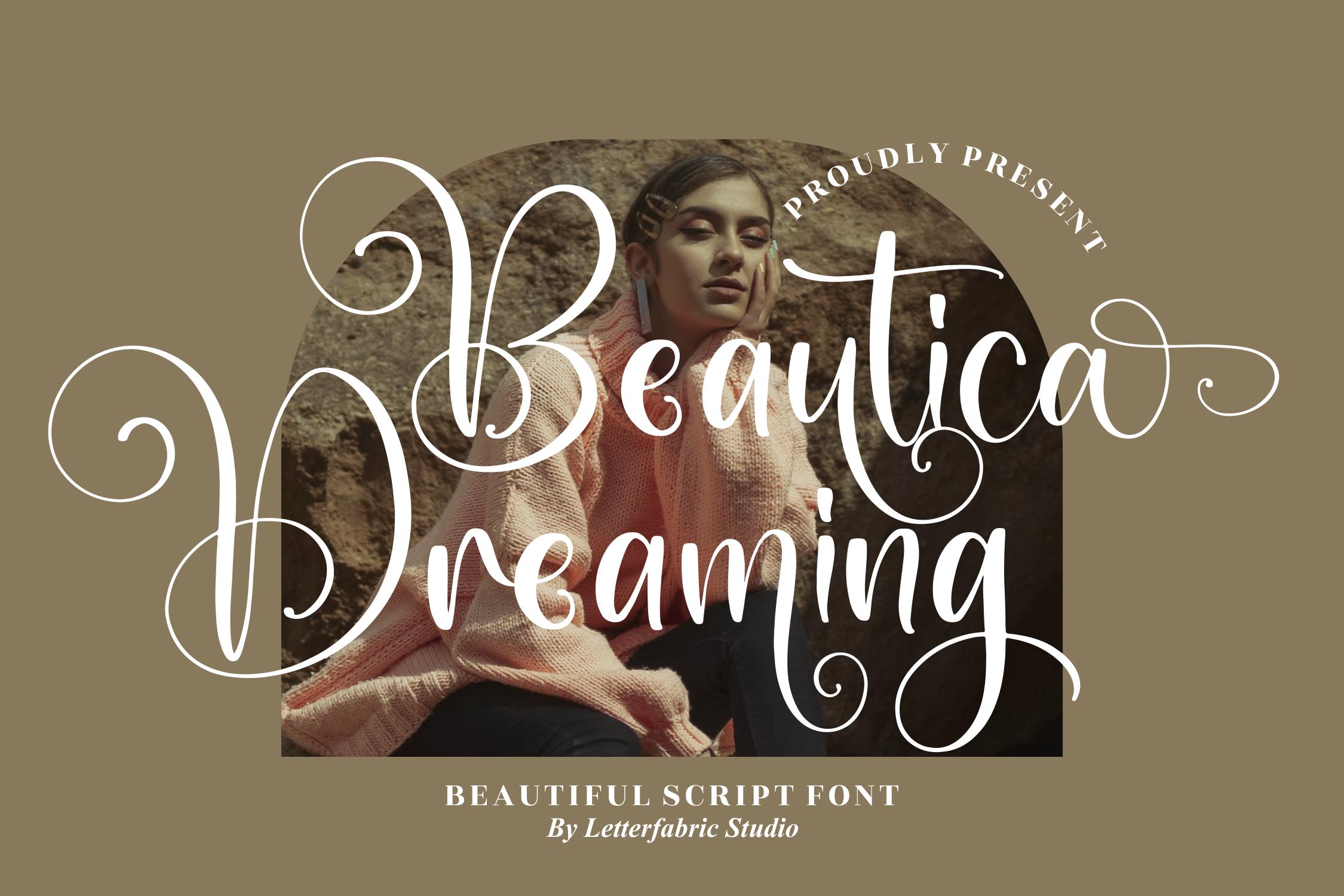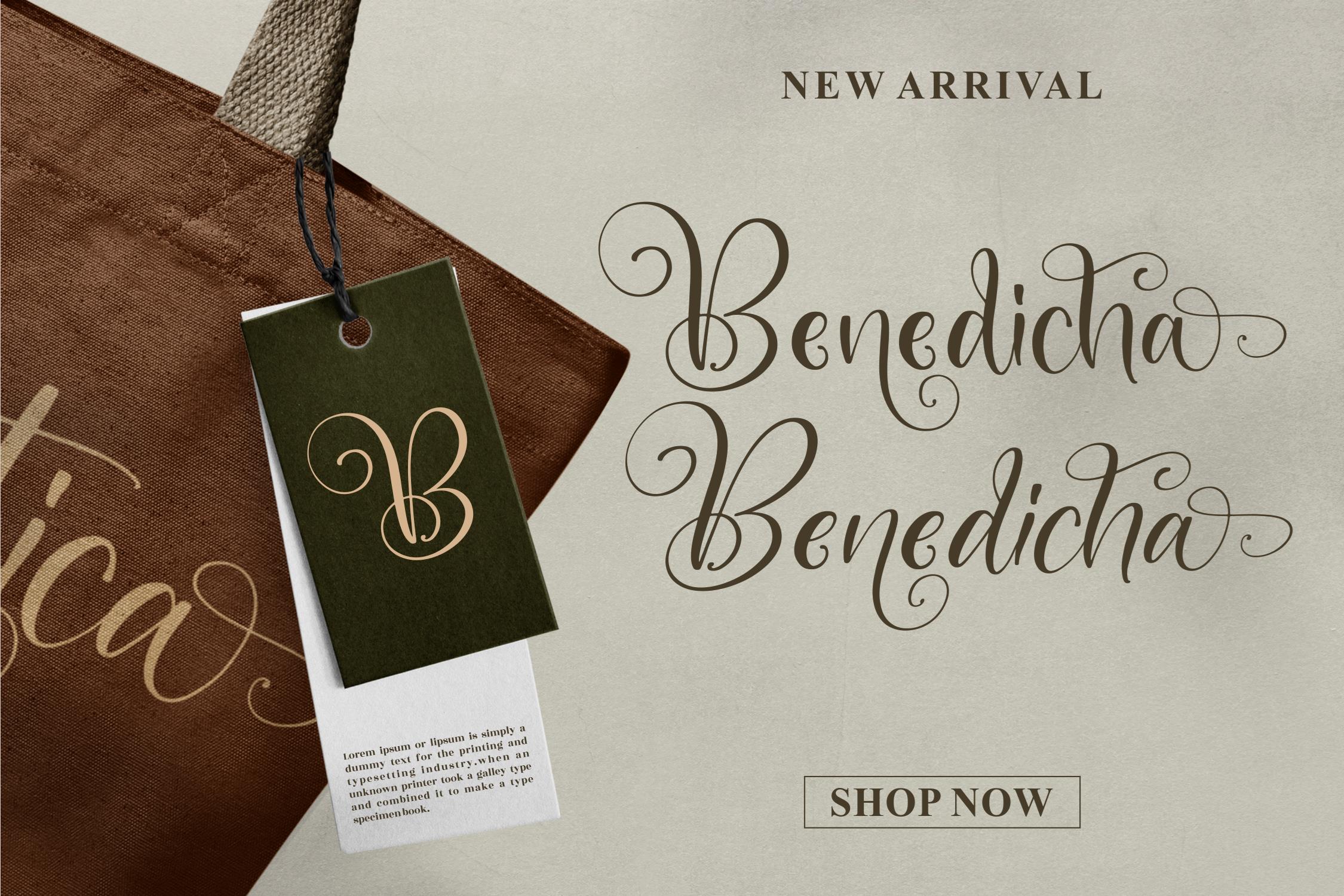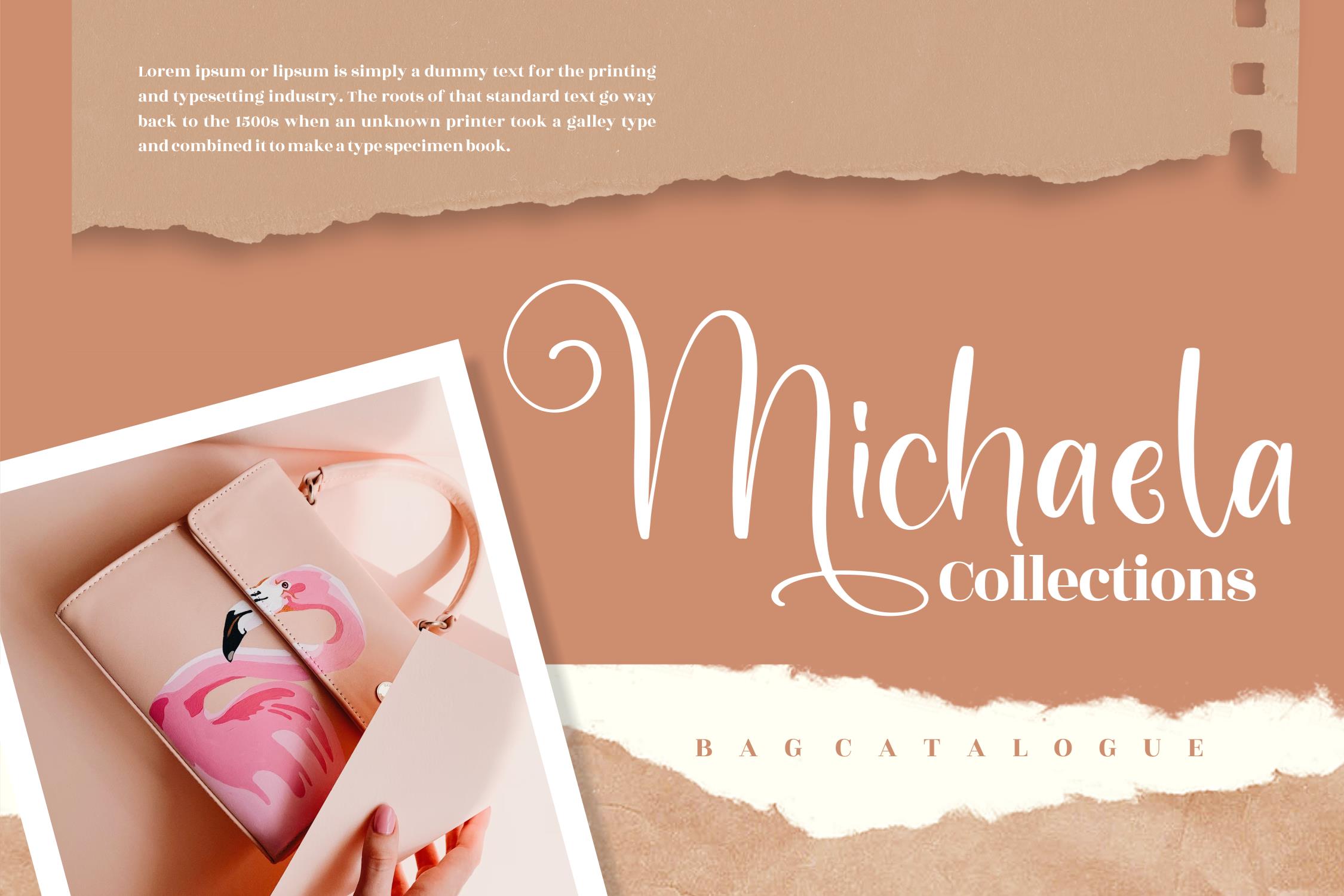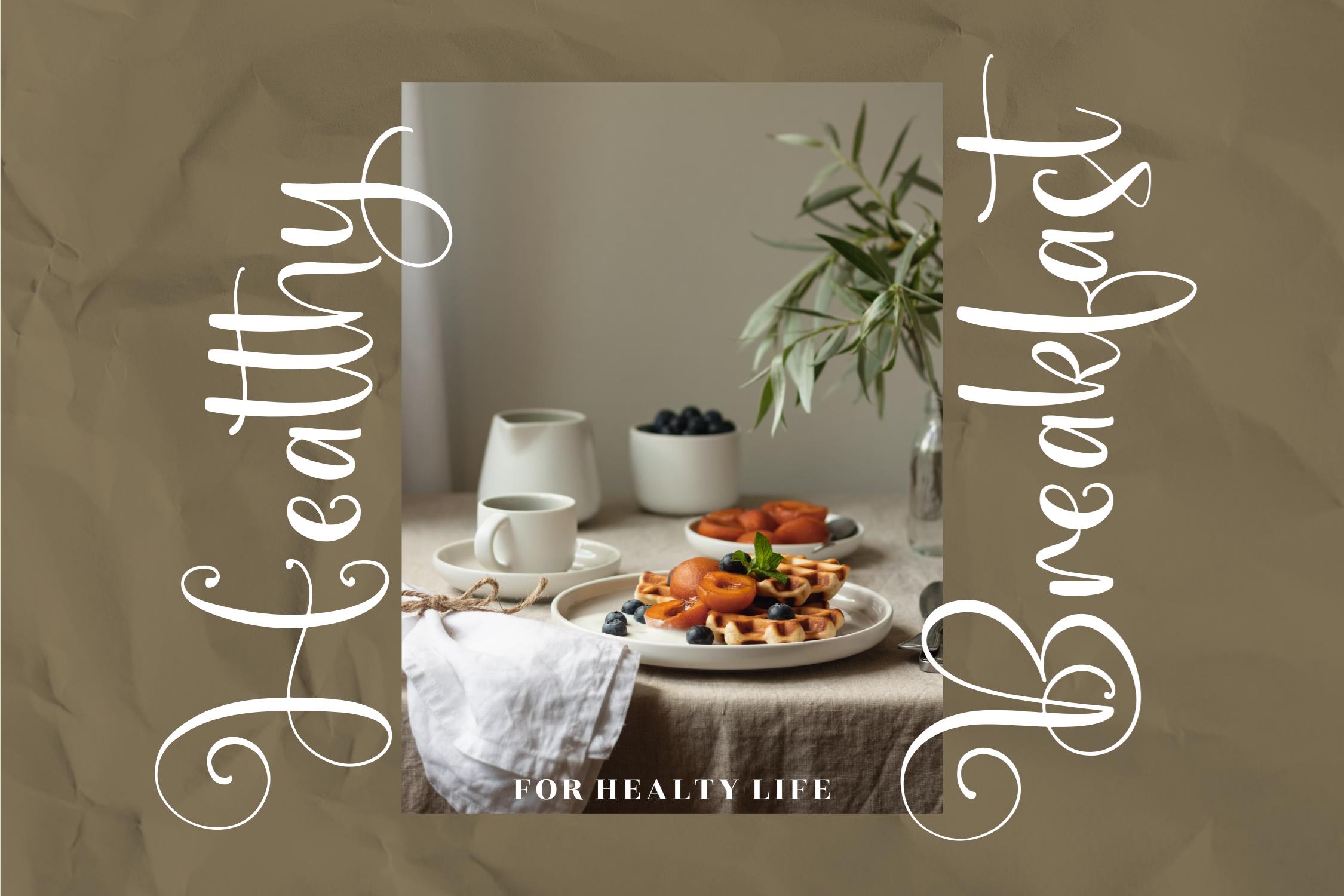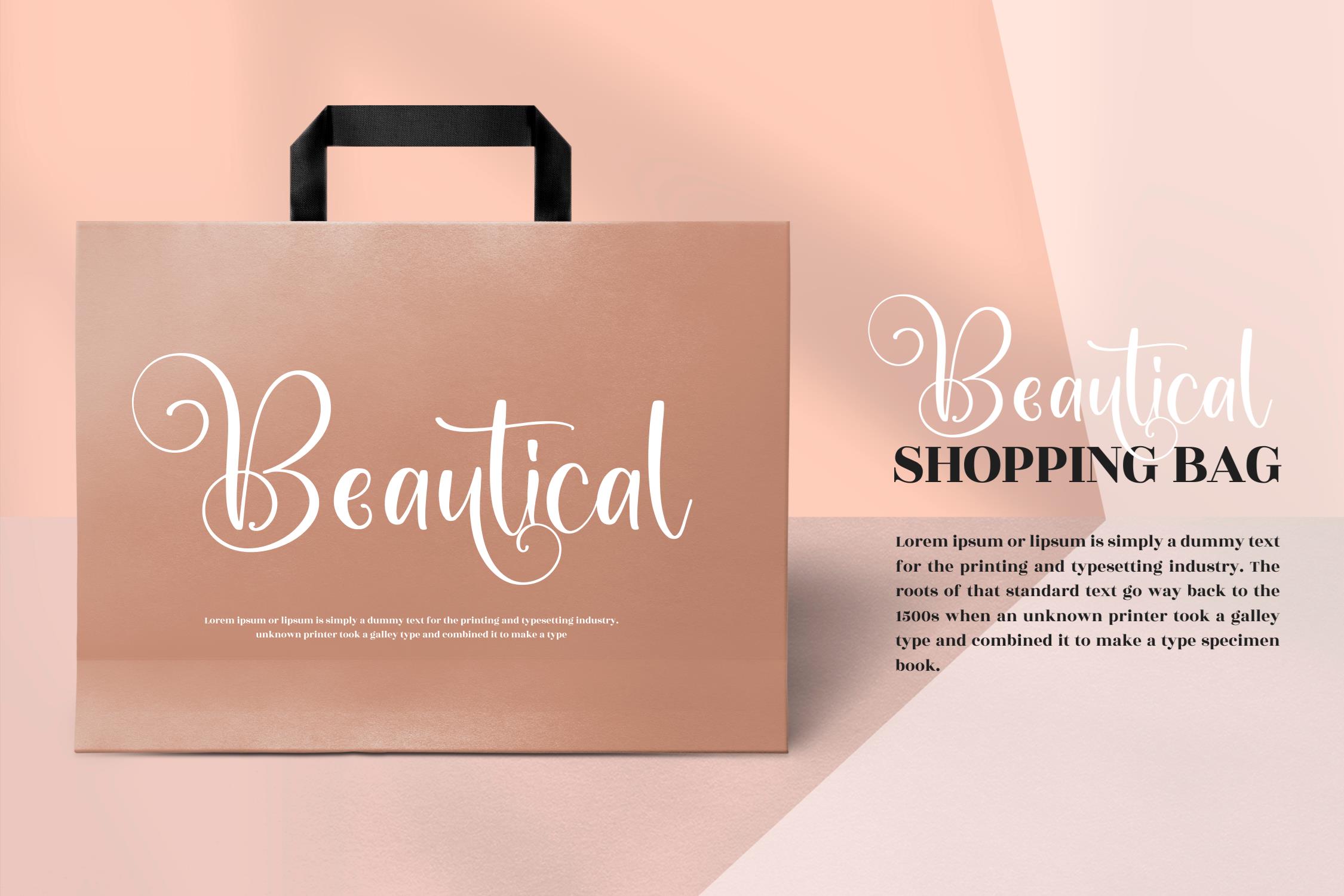
Beautica Dreaming Font
Beautica Dreaming Script Font
This is a beautiful script font, suitable for any projects such as: logos, branding projects, homeware designs, product packaging, mugs, quotes, posters, shopping bags, t-shirts, book covers, name card, invitation cards, greeting cards, label, photography, watermark, special events, and all your other lovely projects that need a beautiful script taste.